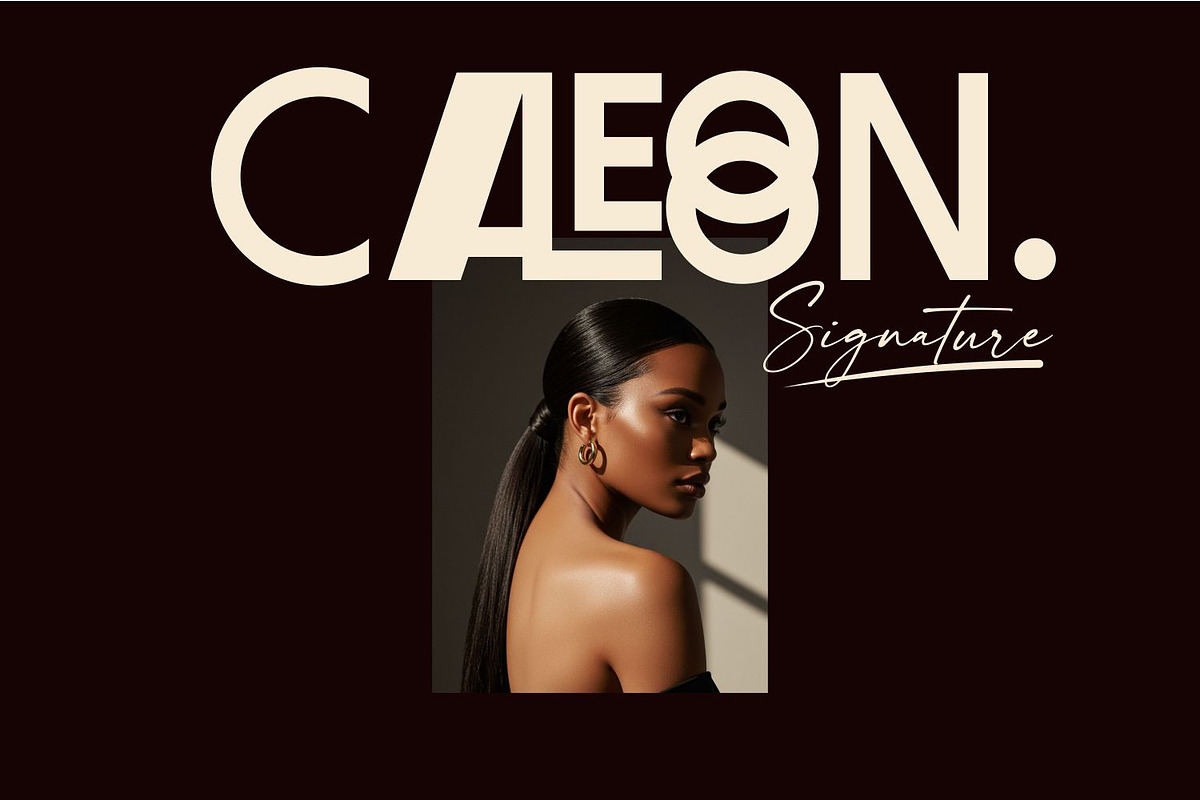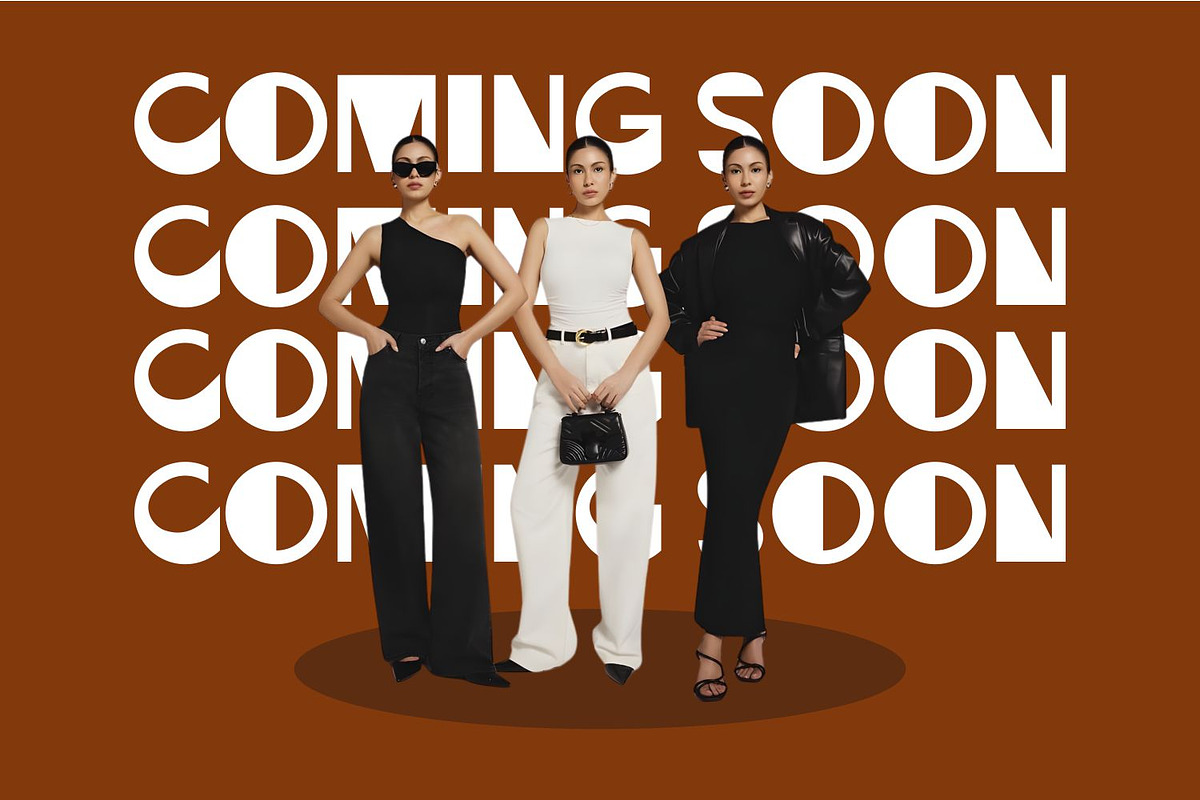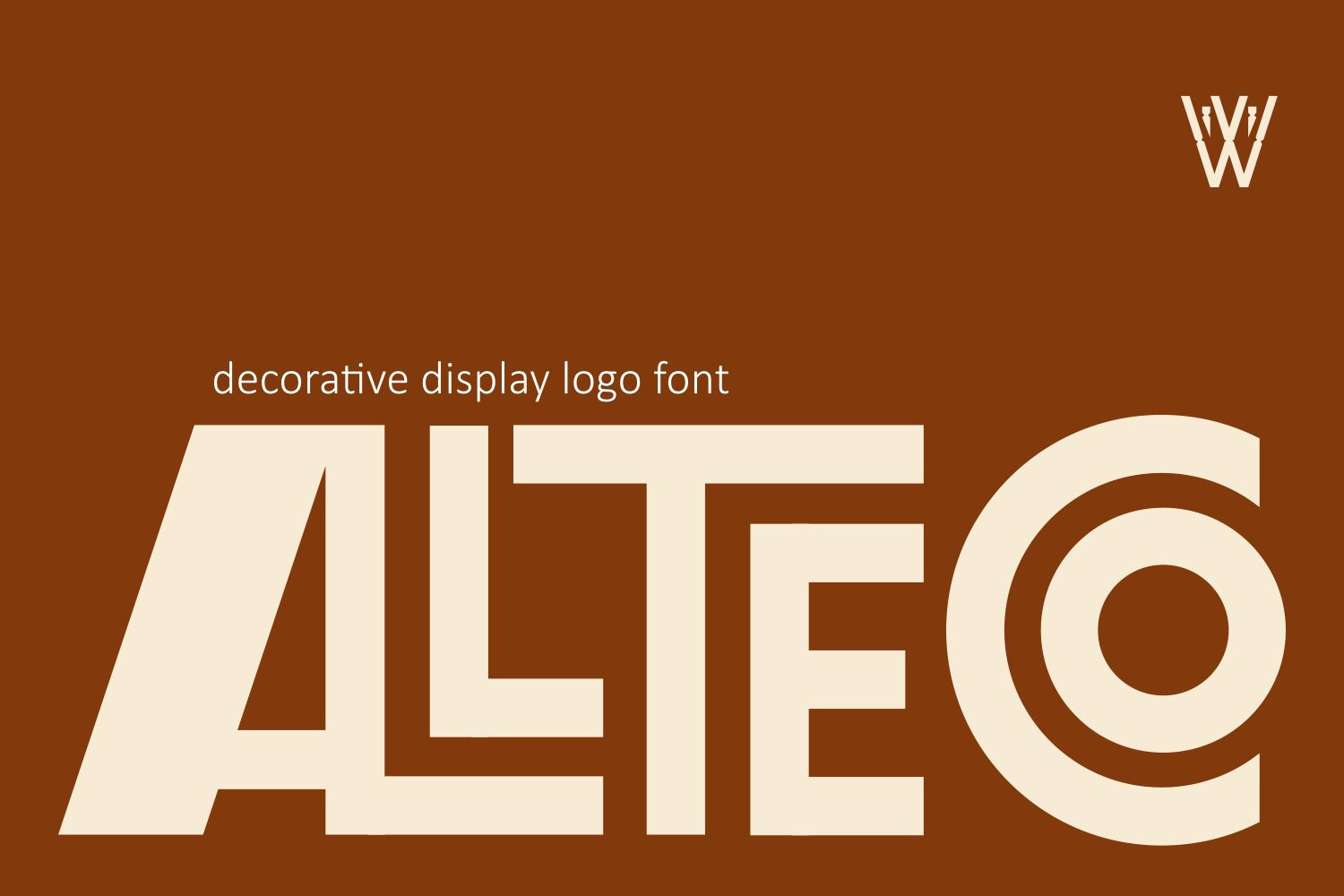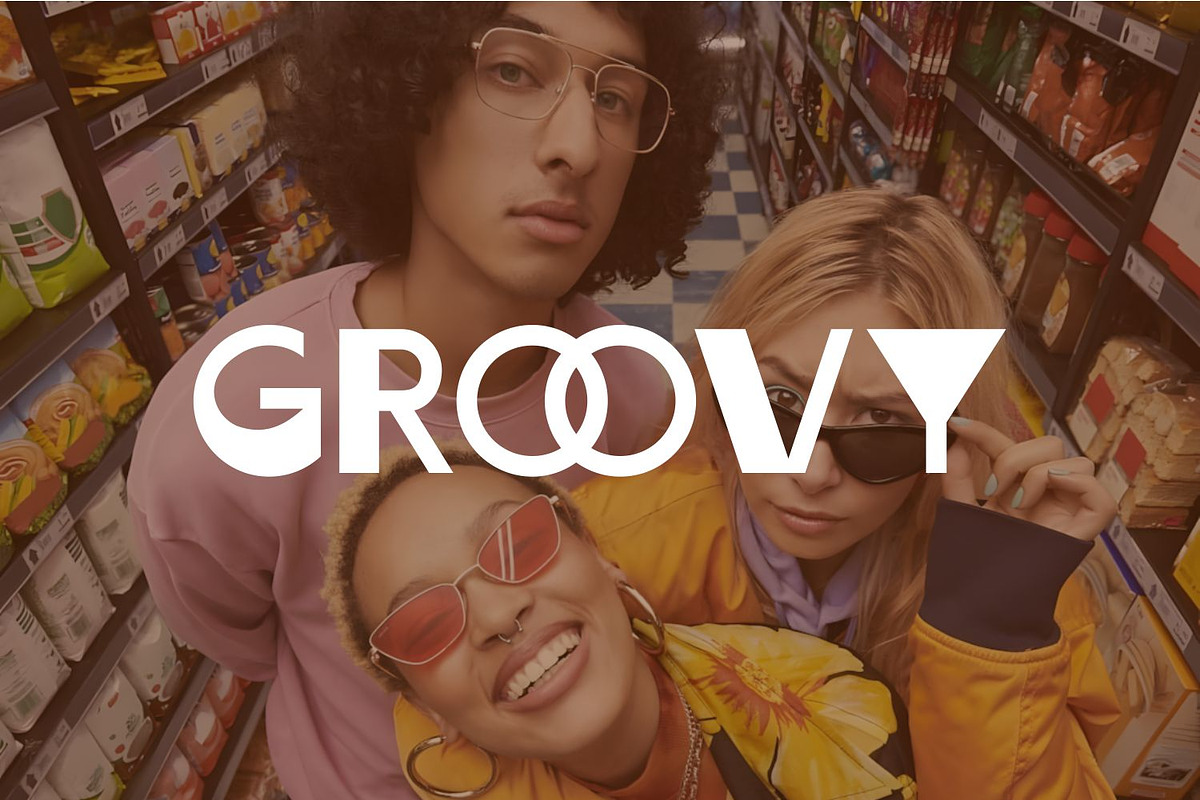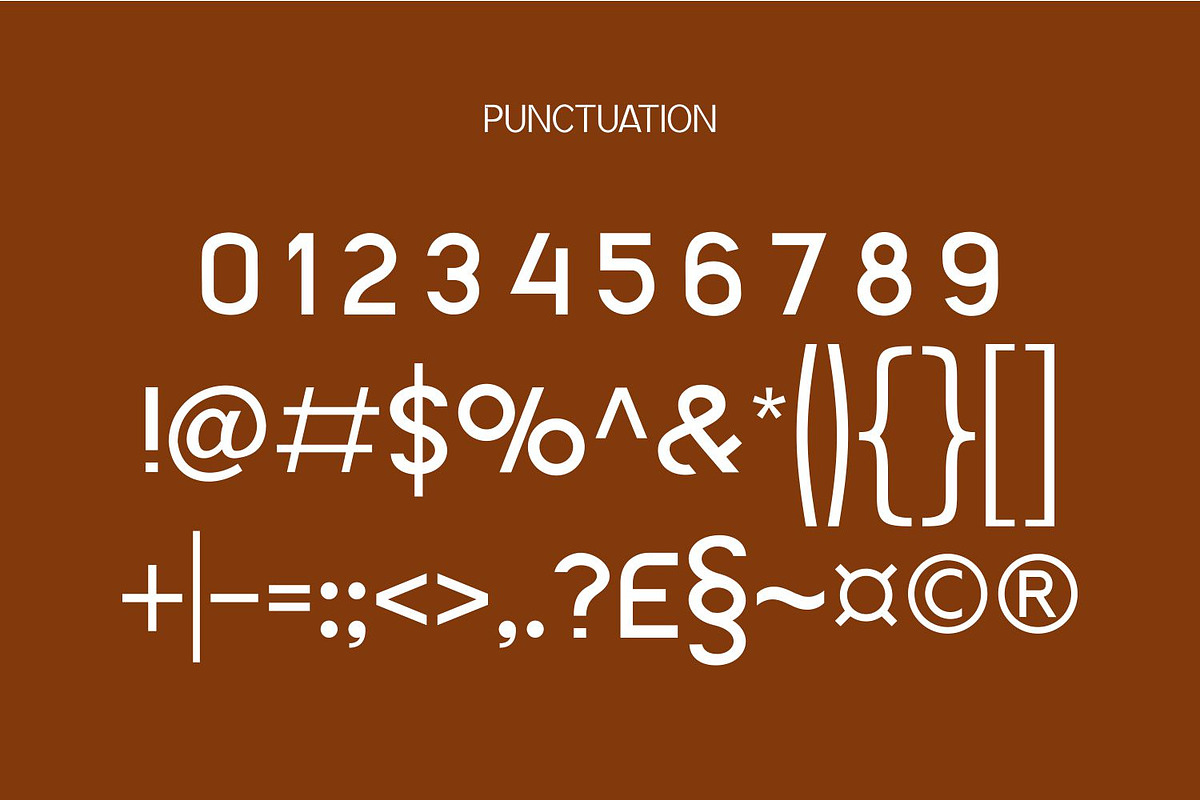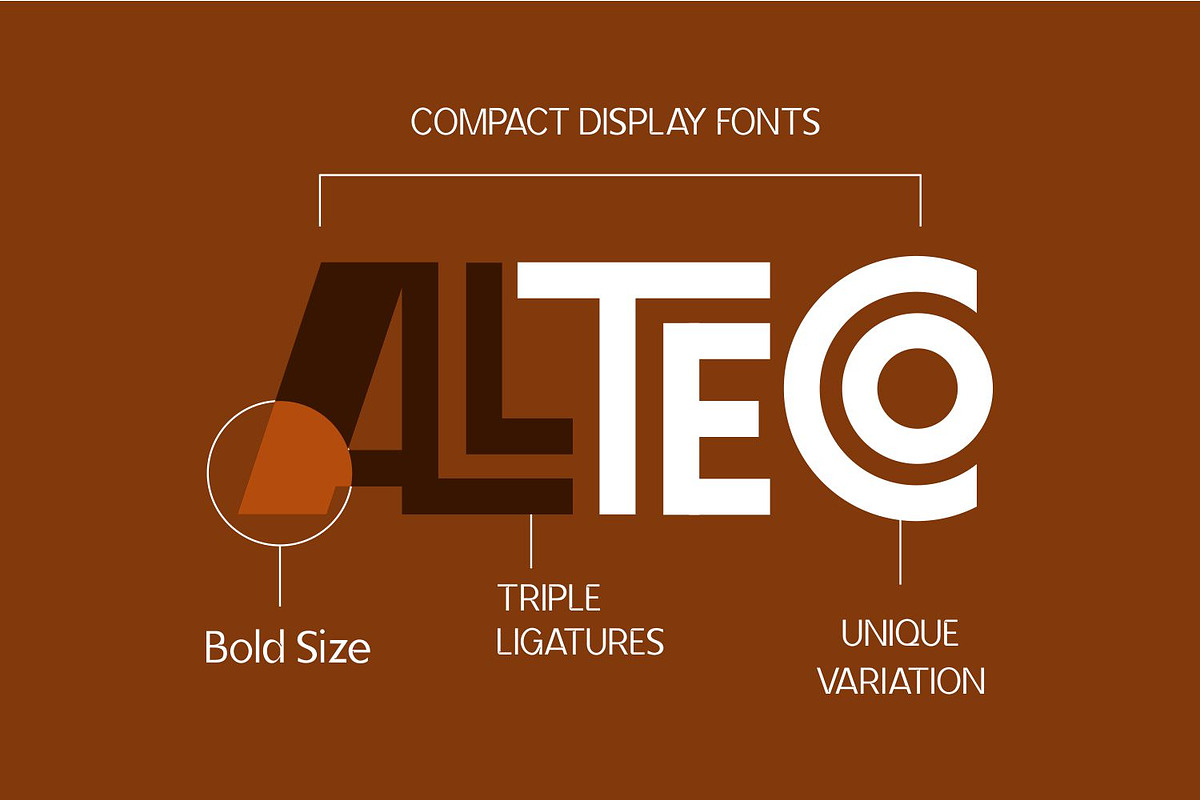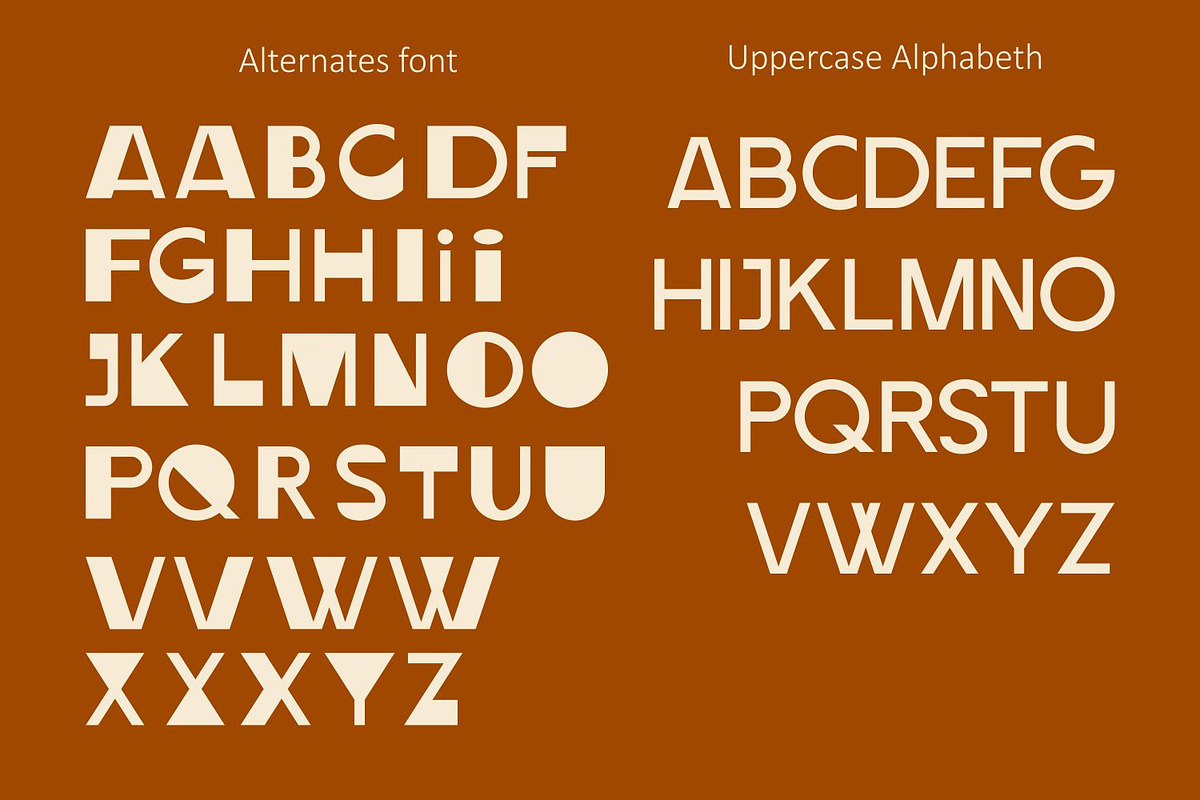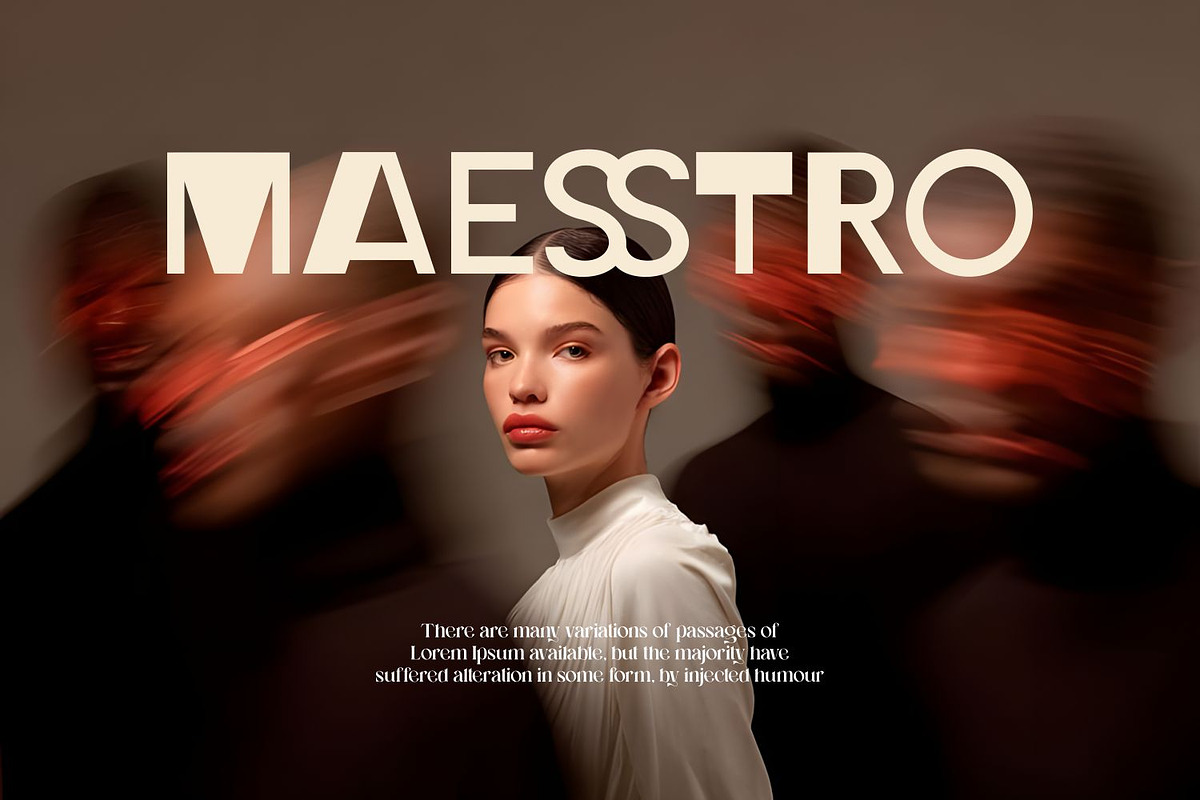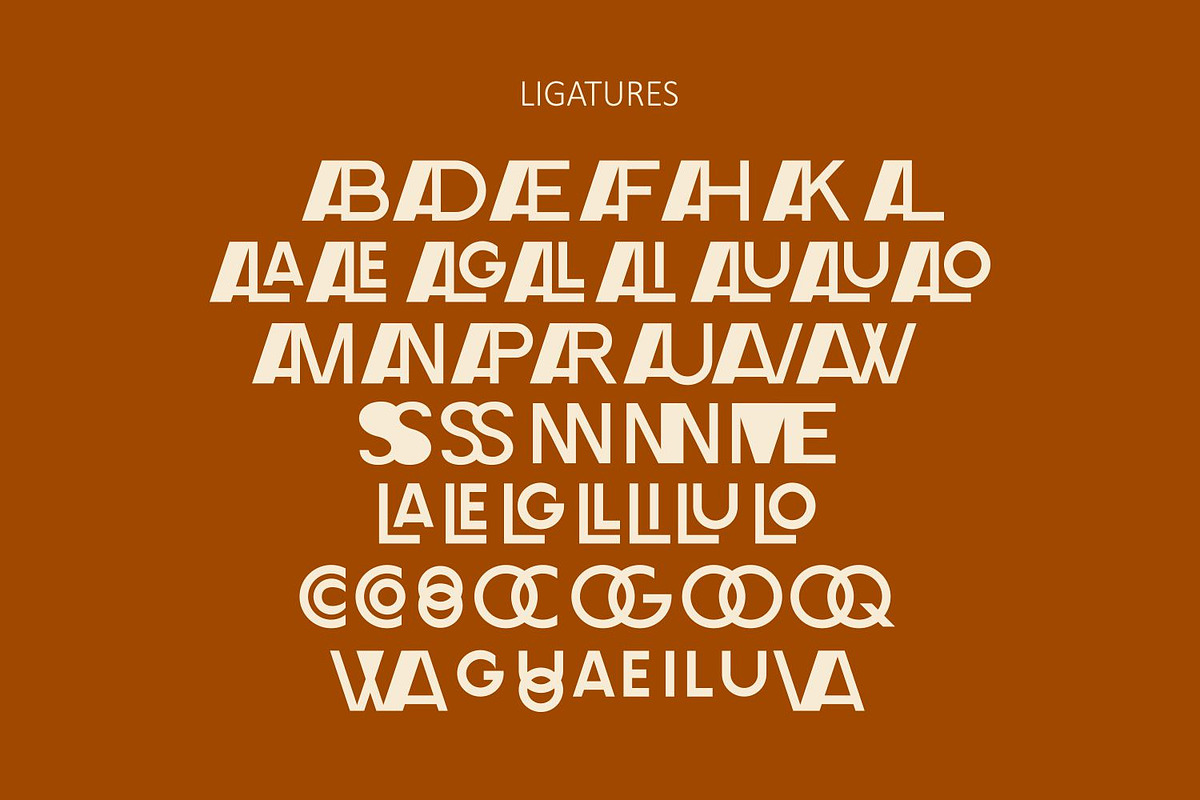
ALLTECO– Modern Retro Display Fonts
ALLTECO is a modern retro display font designed for bold branding and instant logo creation. With strong geometric shapes and distinctive letterforms, ALLTECO allows designers to create professional-looking logos and headlines with just one line of typing.
This font is ideal for logos, brand identities, fashion campaigns, posters, packaging, editorial layouts, social media graphics, and modern advertising designs.
From typing once to branding ready.
ALLTECO works perfectly for designers who need a fast, stylish, and character-driven typeface without complex customization.
✦ Key Features
Decorative display logo font Modern retro aesthetic Strong headline and branding style Suitable for logos, posters, fashion, and social media Clean and distinctive letterforms Easy to use for instant branding results
“Instant Logos Through Typography.”